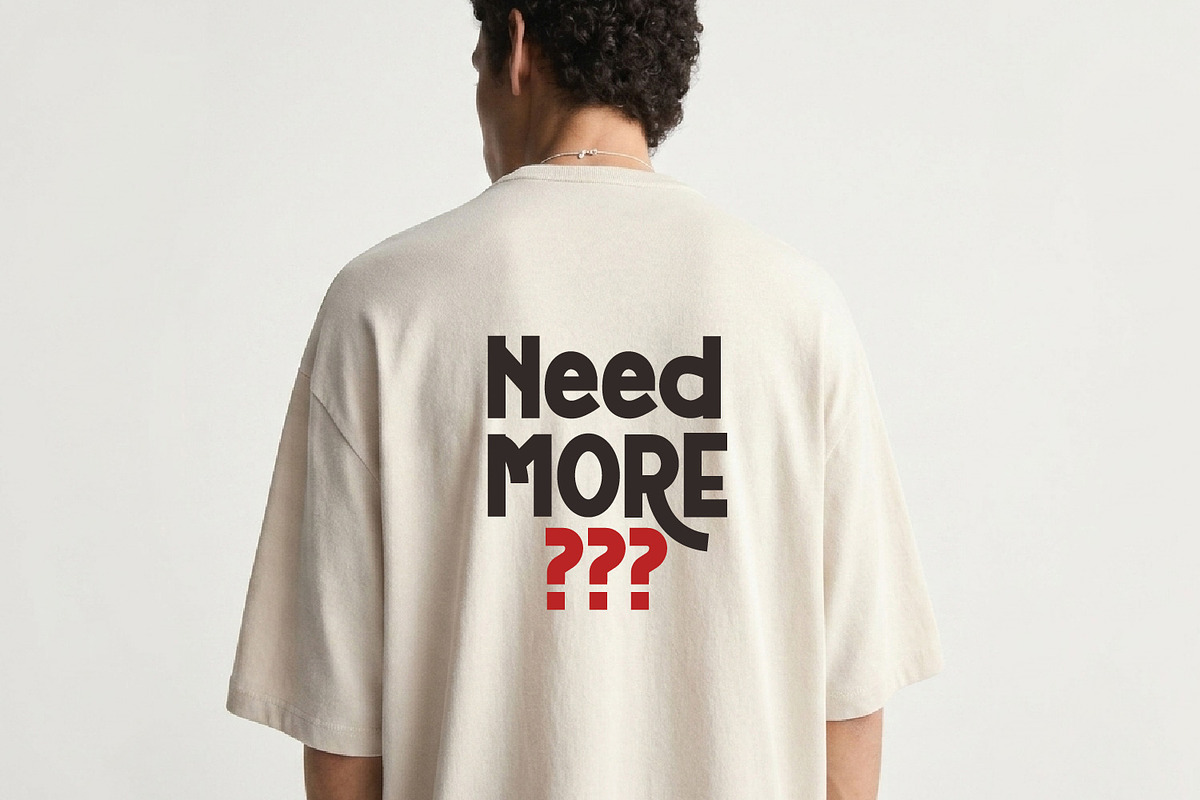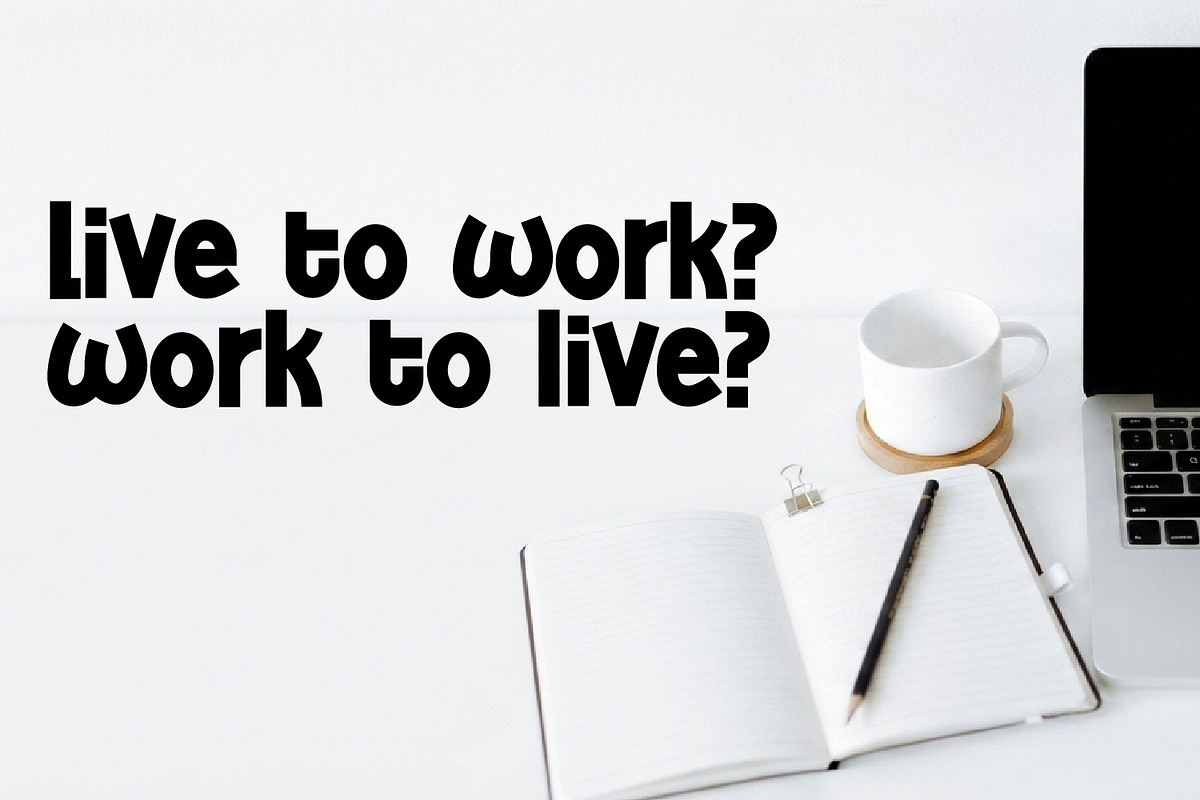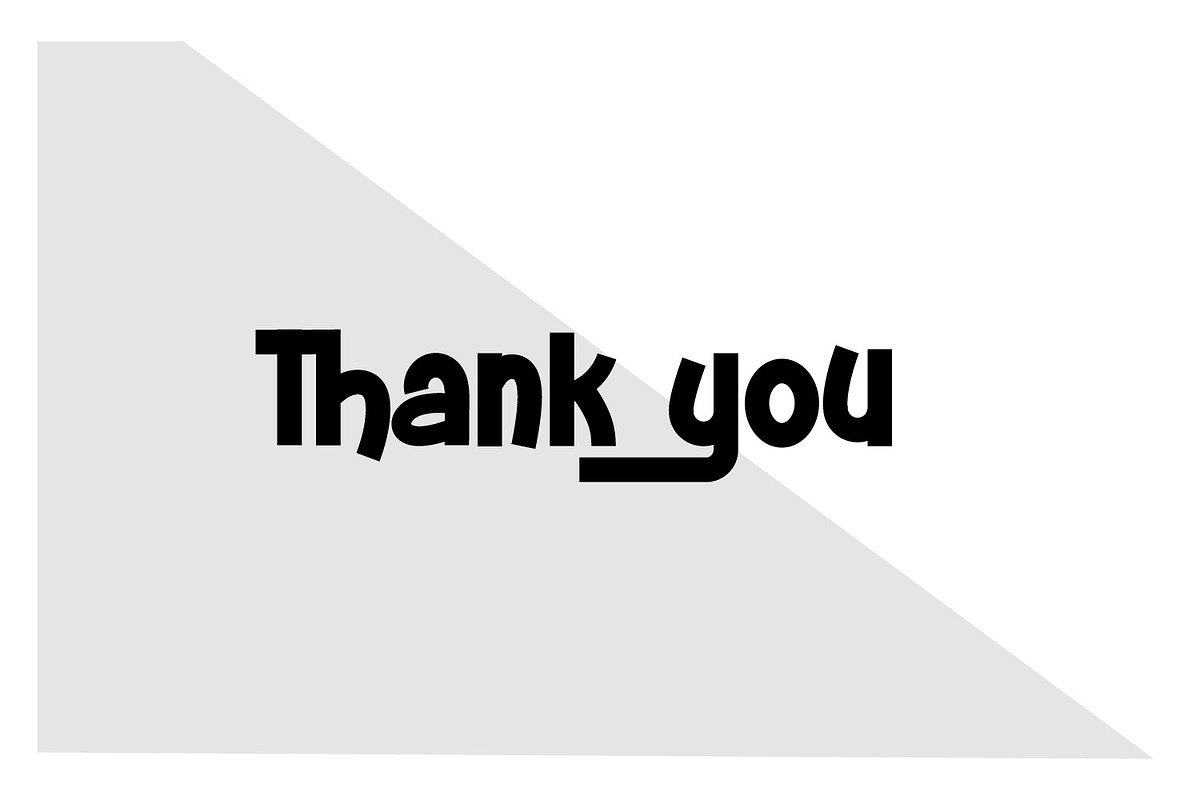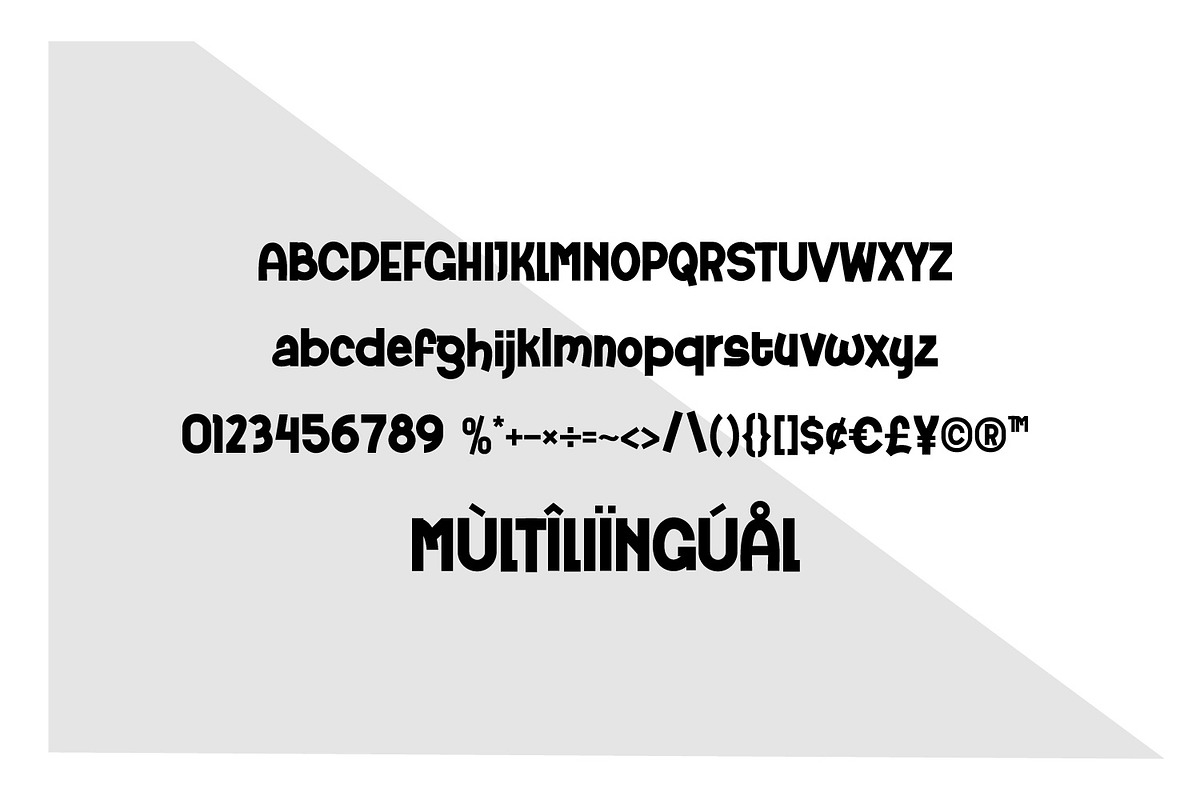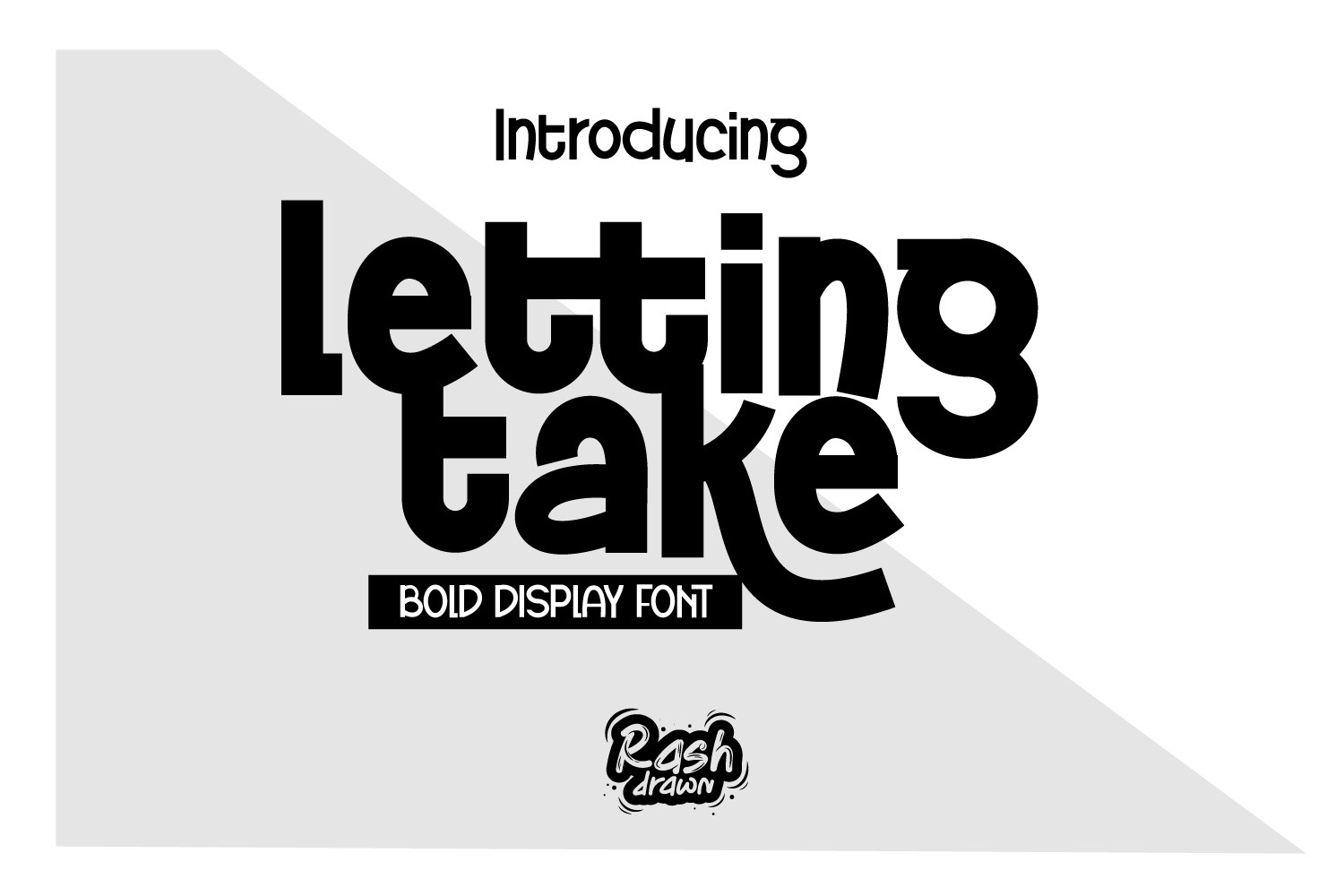
Letting Take – A Bold Display Font
Introducing Letting Take – A Bold Display Font by Rash Drawn
Make a powerful statement with Letting Take, a thick, confident, and impactful display font designed to command attention. Its heavy weight and solid structure make it perfect for headlines, logos, branding, apparel design, album covers, posters, and any project that requires maximum visual impact.
With its slightly playful but mostly serious and chunky characters, Letting Take bridges the gap between friendly and authoritative. It is fully equipped with extensive multilingual support, uppercase and lowercase letters, numbers, and a complete set of punctuation and symbols to handle diverse design needs.
Bold & Heavy Display Font
Strong Visual Impact
Complete Character Set (Uppercase & Lowercase)
Numbers & Basic Punctuation
Extended Multilingual Support
Modern & Versatile
Ideal for: Logos, branding, posters, t-shirt design, social media graphics, website headlines, packaging, and creative advertising.